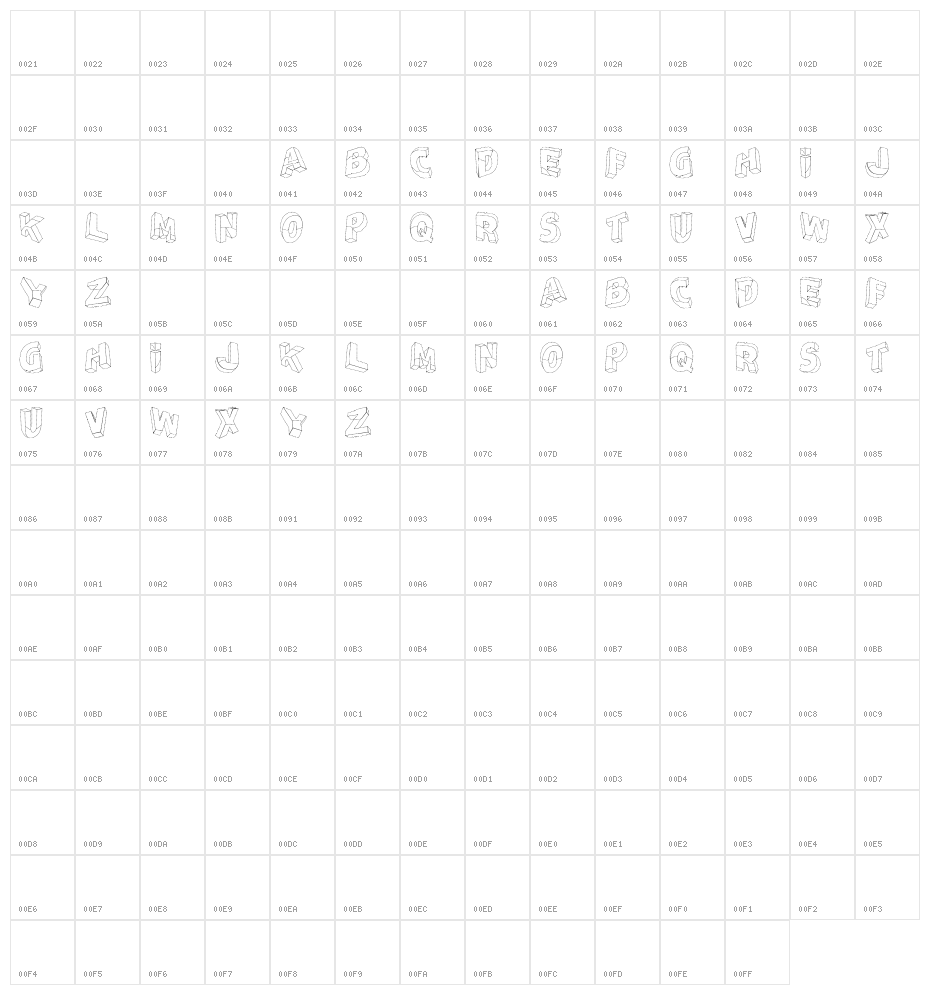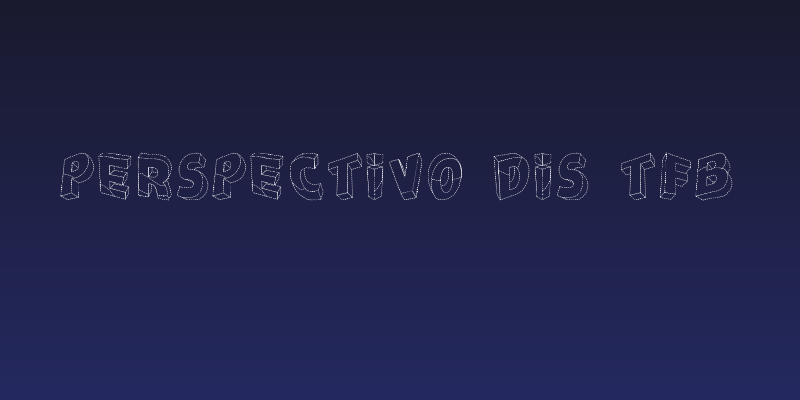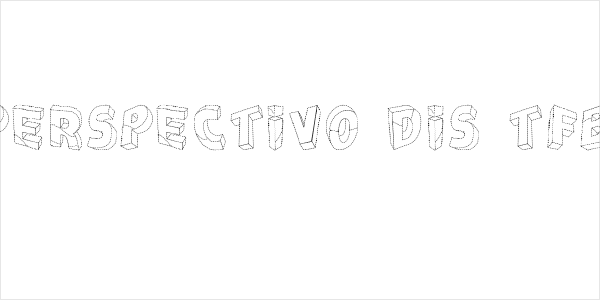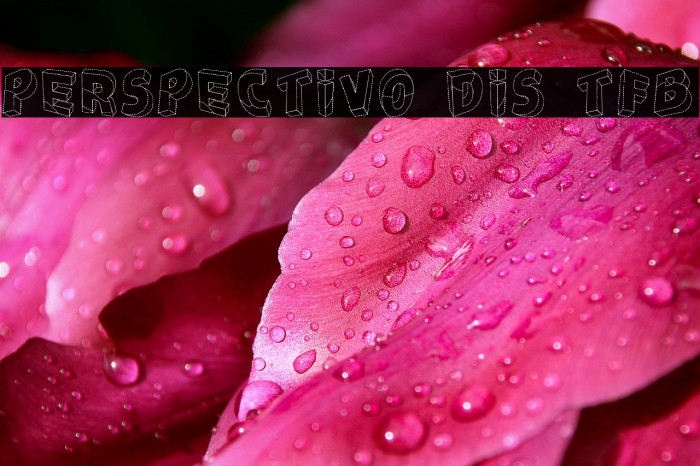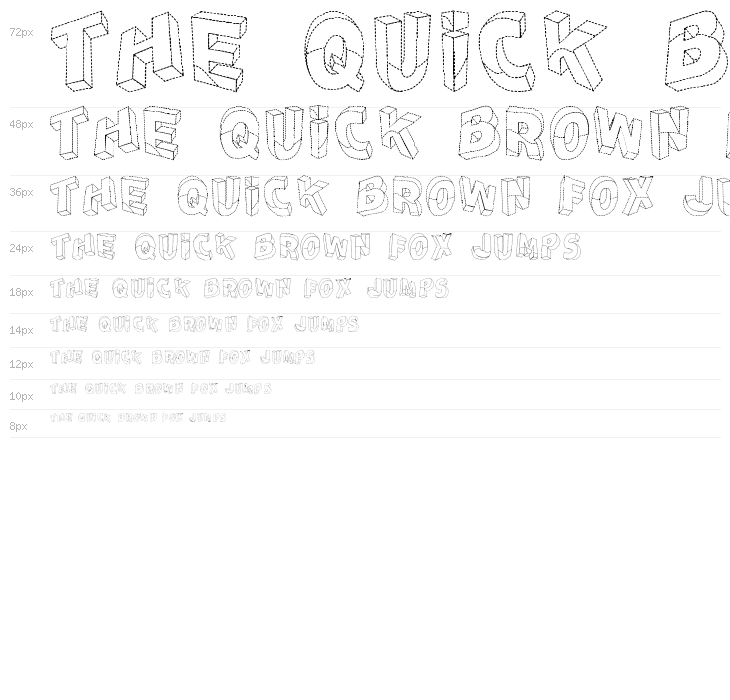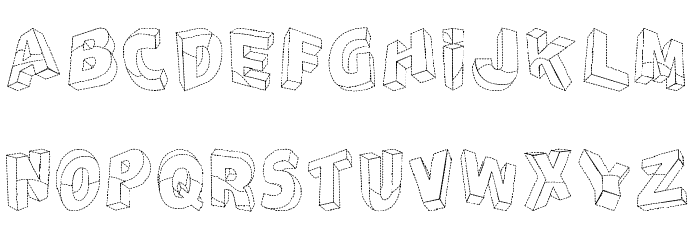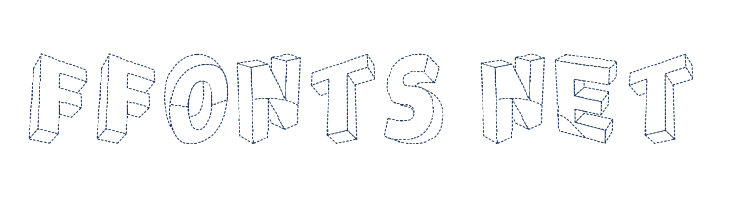
Perspectivo Dis tfb Font
Perspectivo Dis tfb Description
This font features a unique 3D perspective design, giving each character a dynamic and playful appearance. The letters are outlined with a dotted pattern, creating a sense of depth and movement. The uppercase and lowercase letters maintain a consistent style, with bold, geometric shapes that stand out. The font's playful and eye-catching design makes it ideal for creative projects that require a distinctive and modern look. The characters are evenly spaced, ensuring readability while maintaining their artistic flair.